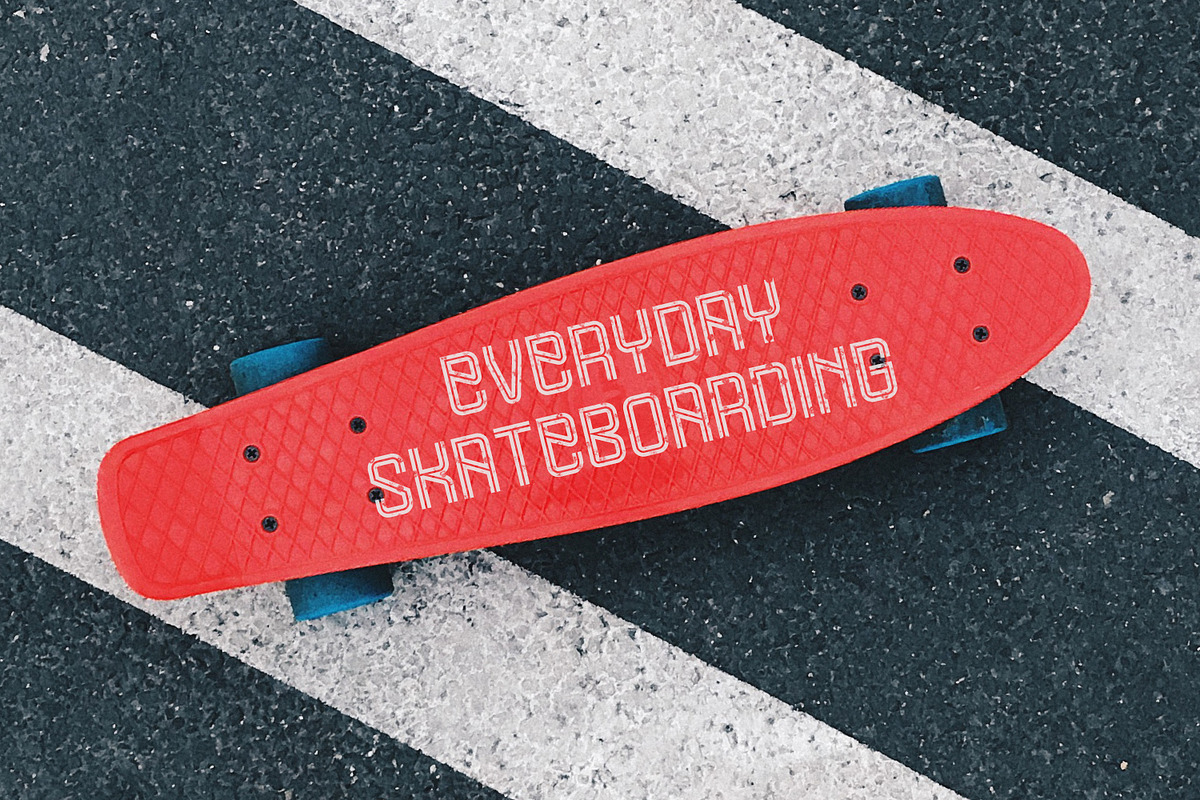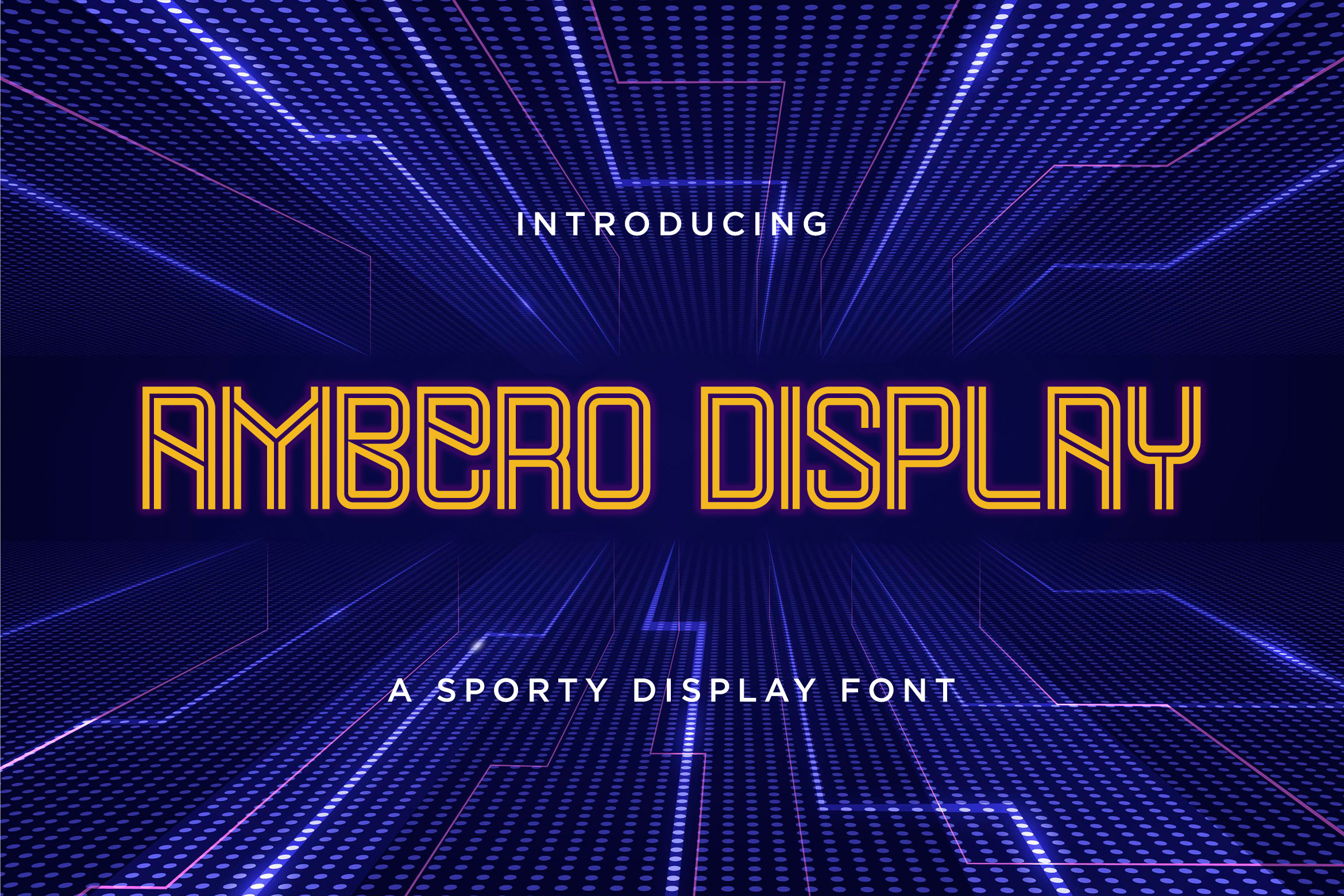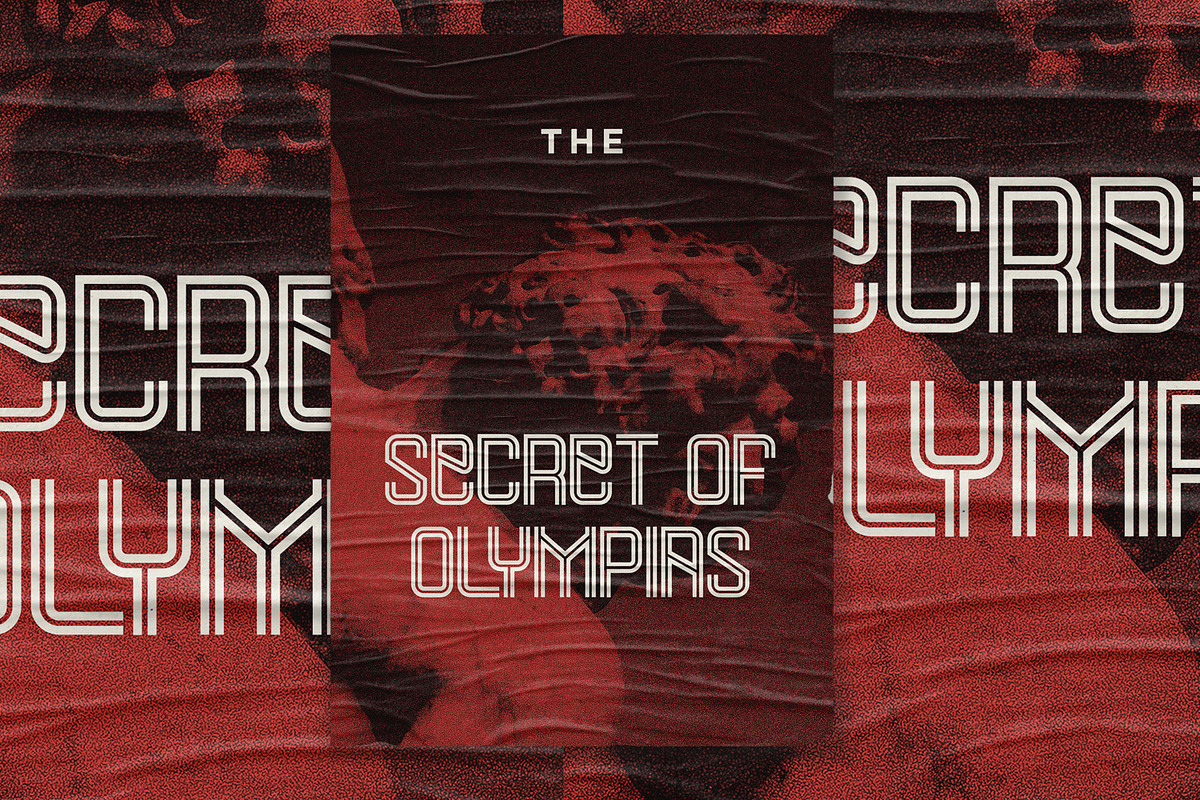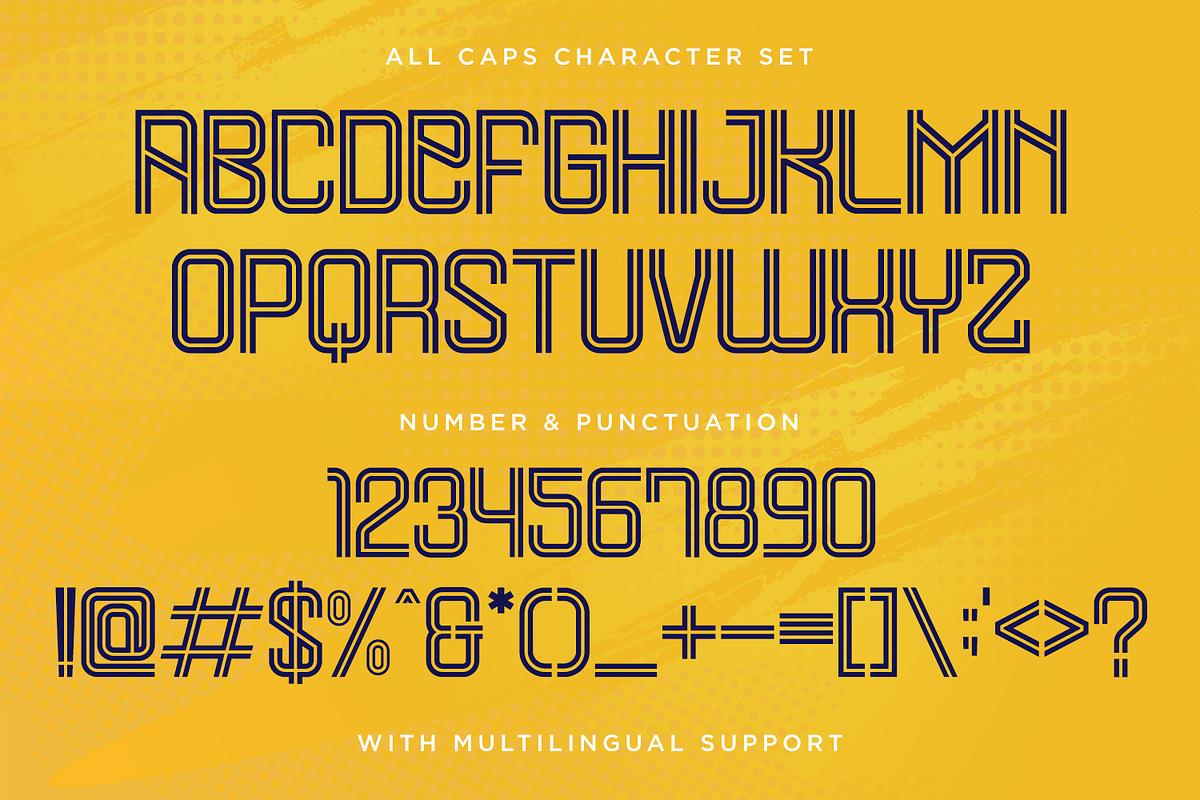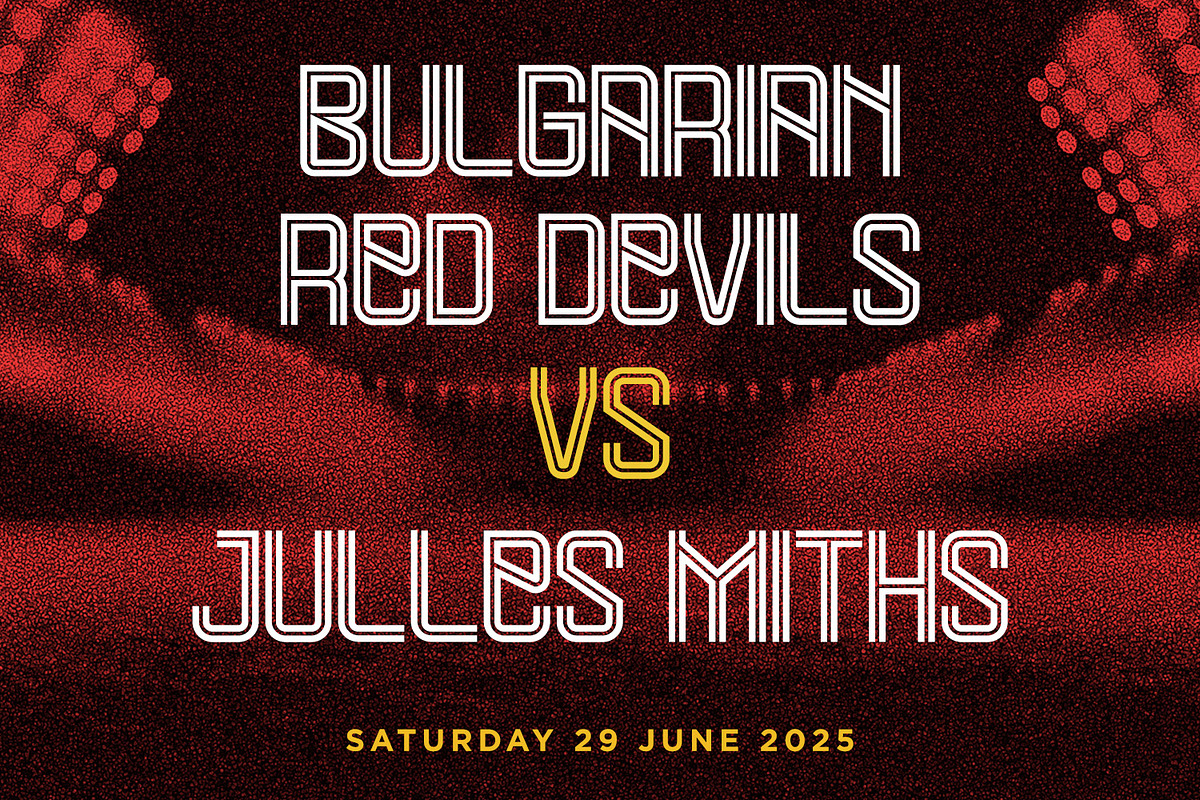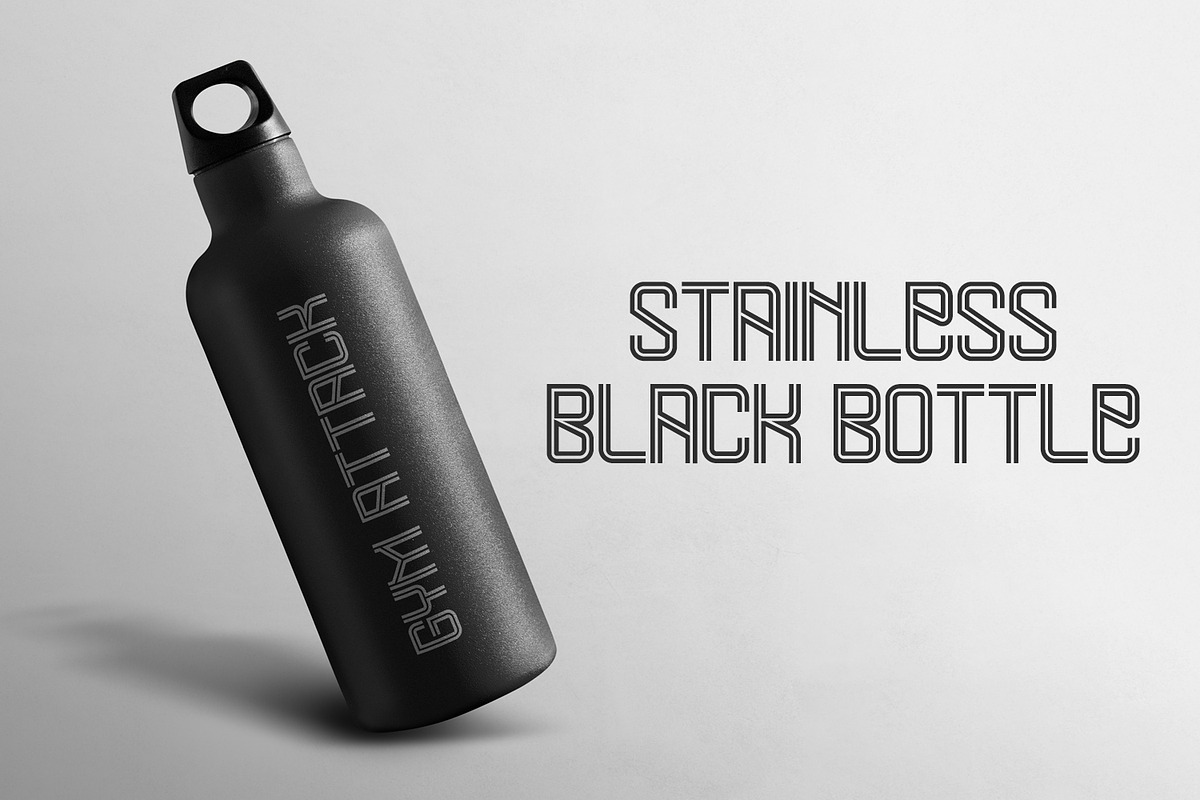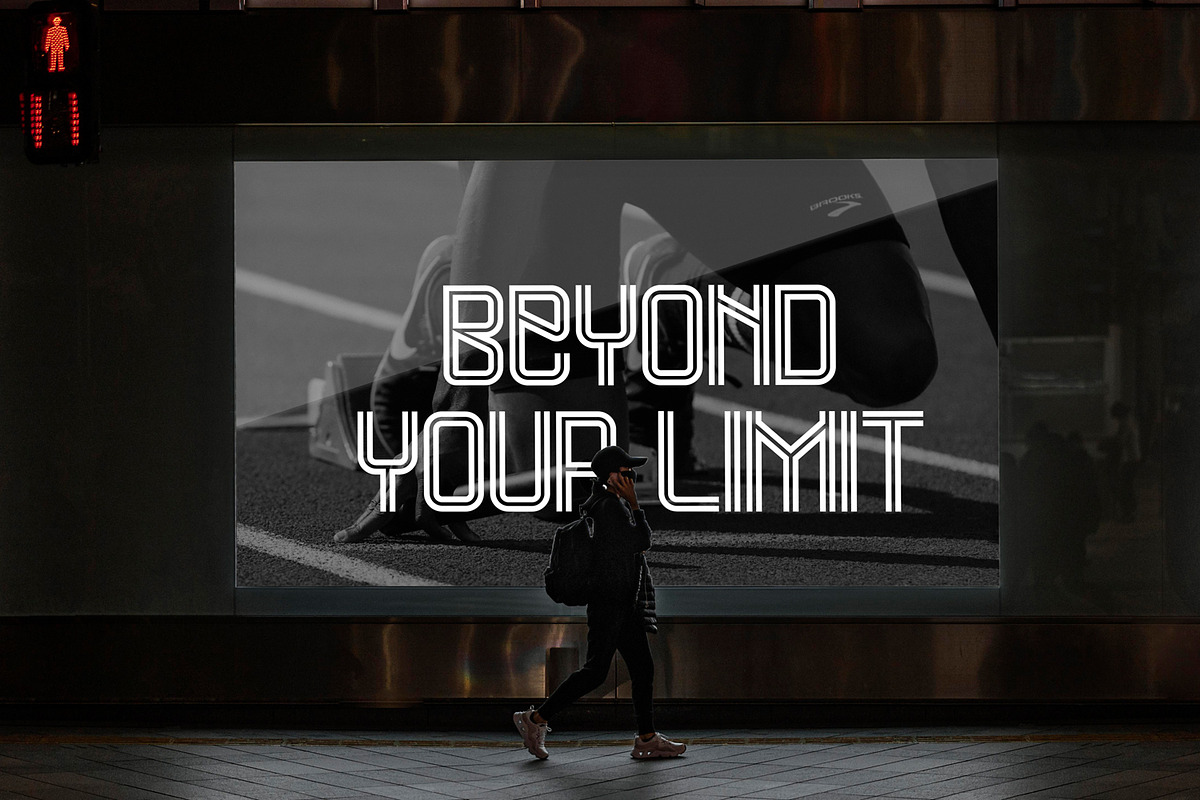
Ambero - Sporty Modern Display Font
Ambero Display is a sporty modern display font designed to deliver speed, energy, and bold visual impact. Built with clean geometric lines and a distinctive outline structure, this font creates a futuristic and athletic feel that instantly stands out.
Featuring an all-caps character set, Ambero Display is perfect for sports branding, esports logos, posters, headlines, gaming visuals, event graphics, and modern promotional designs. Its sharp construction and consistent stroke rhythm make it highly readable while maintaining a strong personality.
Ambero Display works excellently for both digital and print projects, especially designs that require a modern, dynamic, and competitive look. Whether you’re creating branding for sports teams, tech products, or bold marketing materials, this font brings confidence and motion into your typography.
Designed with versatility and clarity in mind, Ambero Display is a powerful choice for designers who want a modern display font with a sporty and futuristic edge.